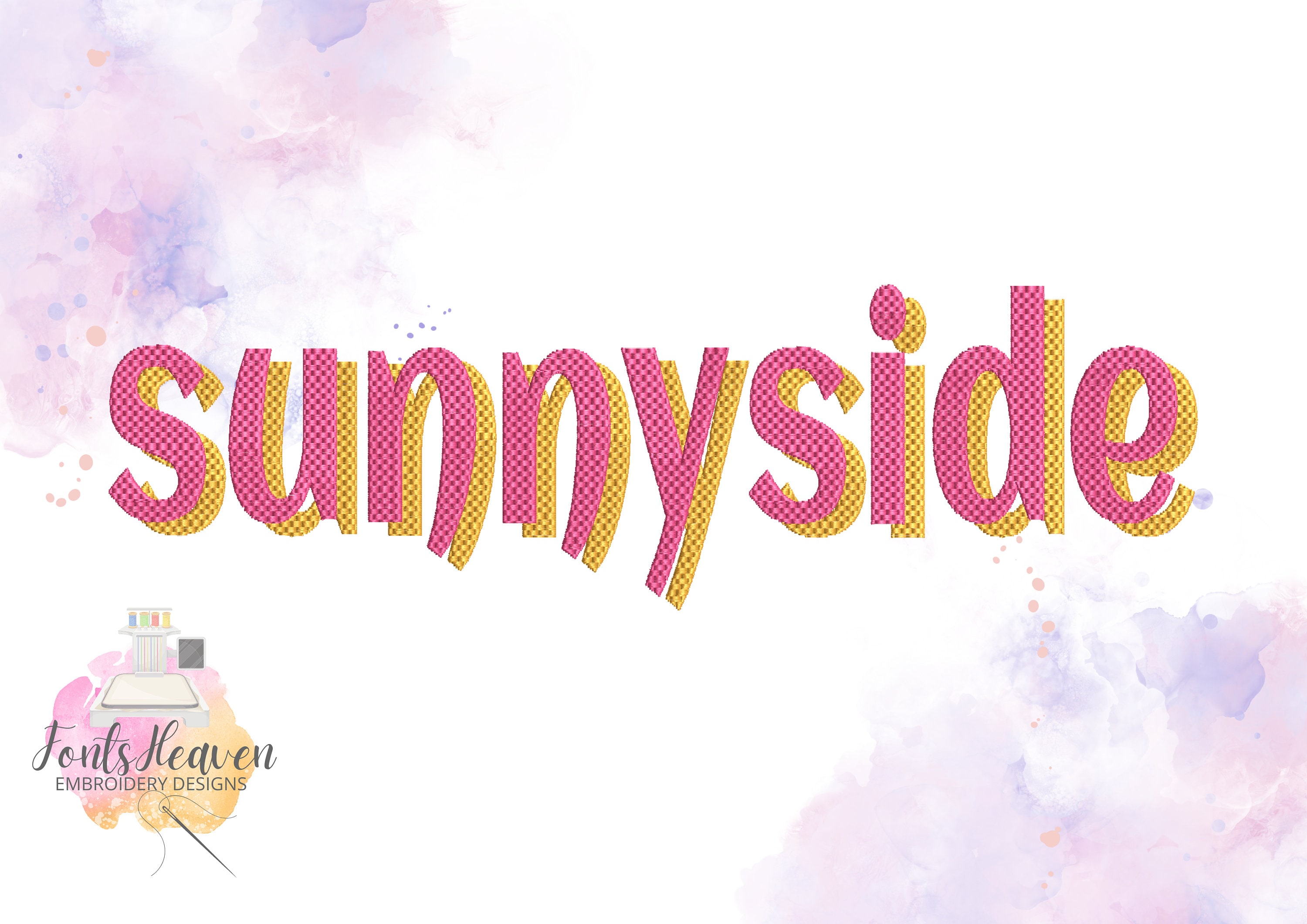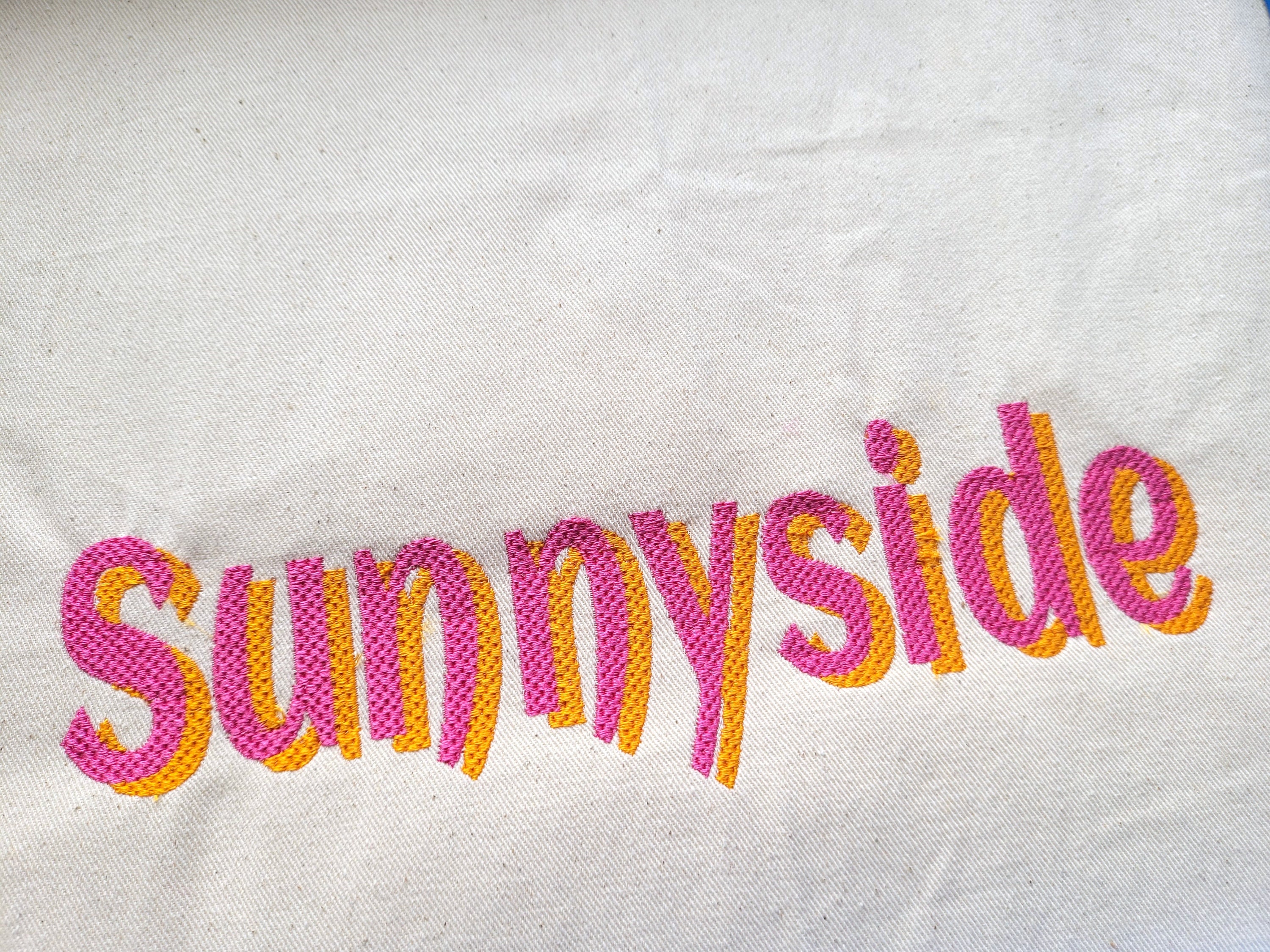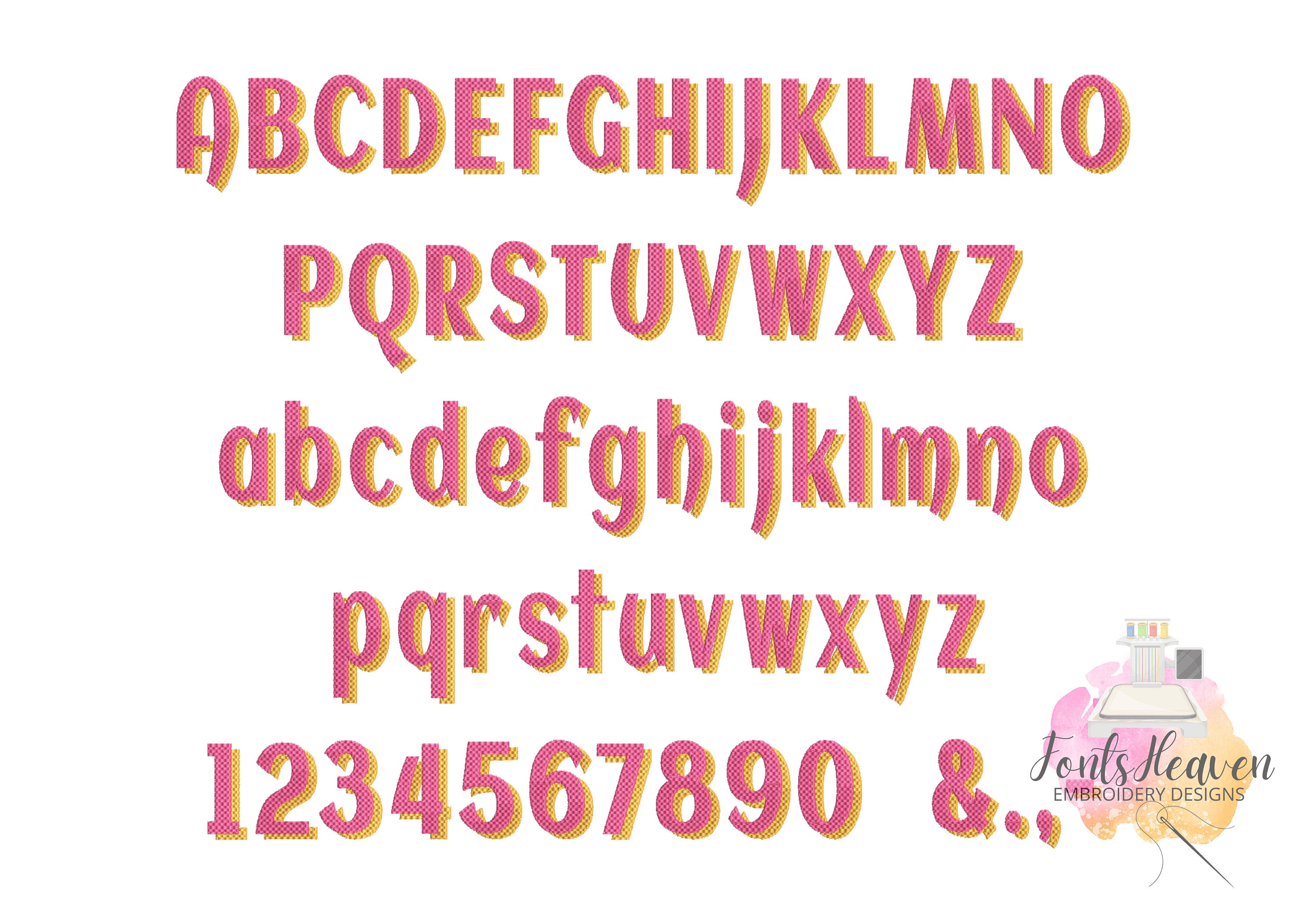
Awesome Textured Font with Shadow alphabet Monogram name letters machine embroidery designs in sizes 1.5 thru 3.5 inches textured fill stitch, BX included
Whole alphabet uppercase and lowercase letters, numbers and punctuation & . , -